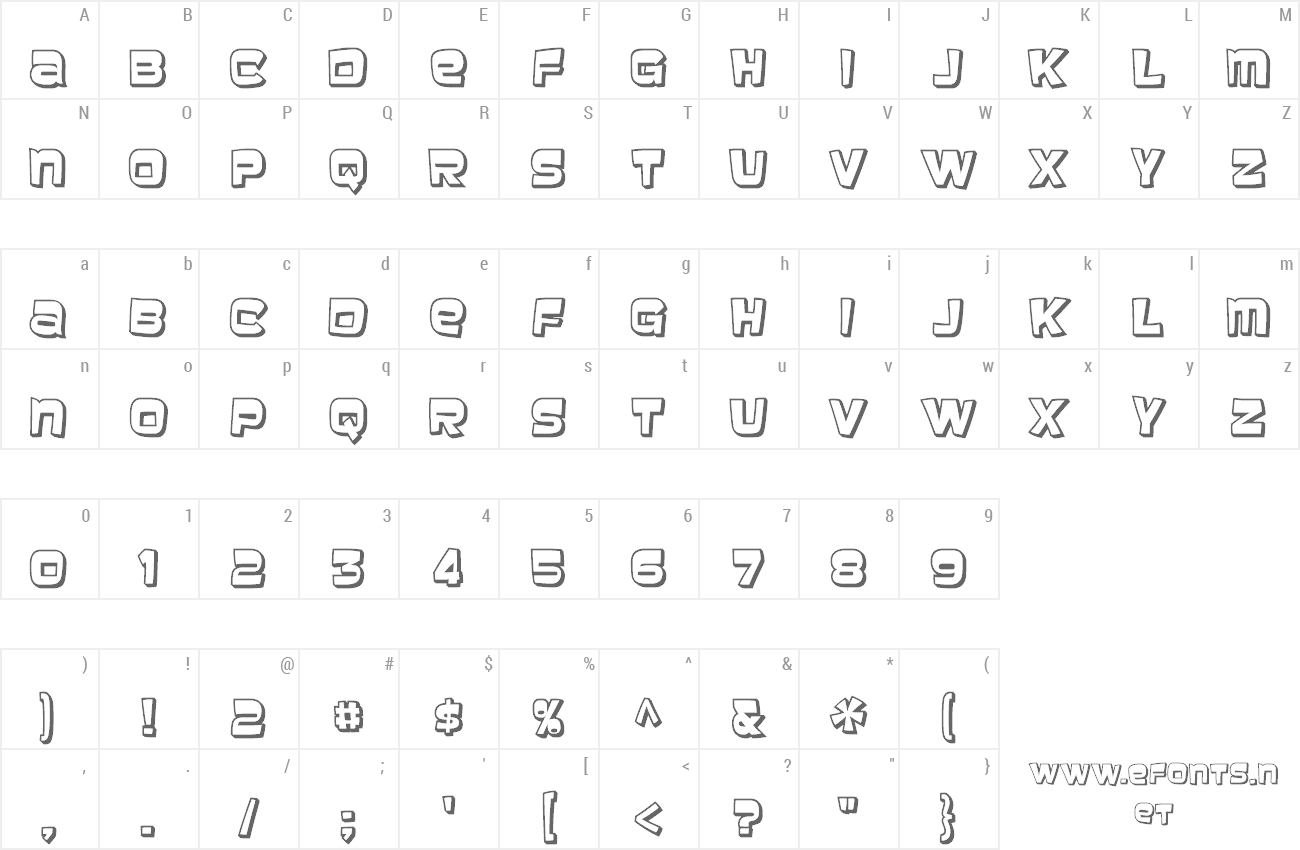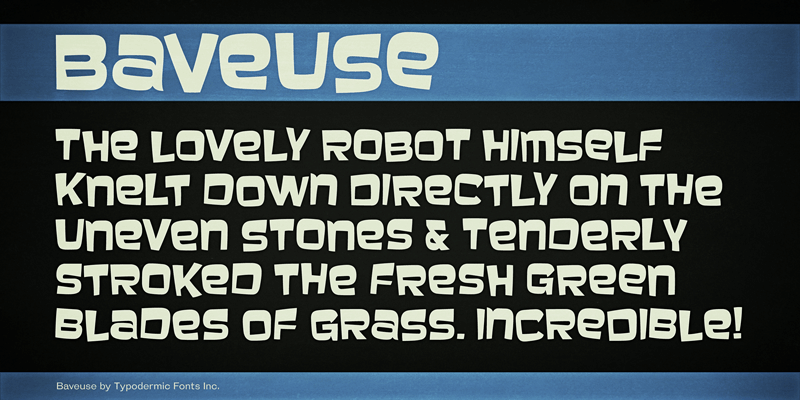
Baveuse is a fun, bouncy casual headline font created in 2000. The latest version of Baveuse has been redrawn with subtle curves for a more casual, less computerized look. An extra set of alternates has been added. In OpenType savvy applications, alternate letters and numerals are automatically shuffled to create a more natural feel. This font includes a license that allows free commercial use: sometimes referred to as a desktop license. This allows you to install the font on a computer and use it to create posters, web graphics, game graphics, t-shirts, videos, signs, logos and more. Read the license agreement for details. If you'd like to embed this font in an app, ebook, on the web or anything that's not covered by the desktop license agreement, visit the link below. You'll find distributors who offer different types of licenses or you can contact me for help. http://typodermicfonts.com/baveuse-font/ |